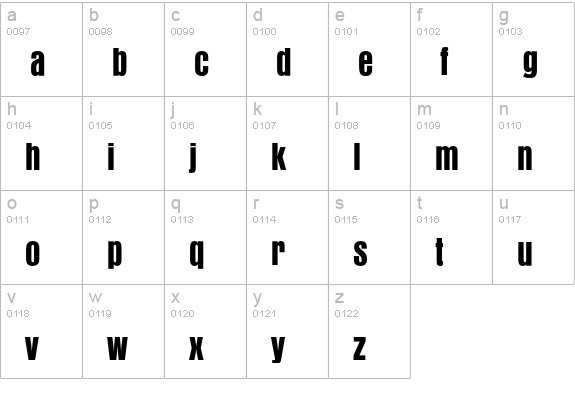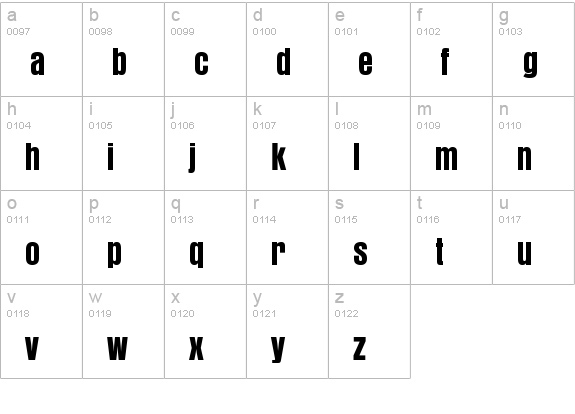
Anzeigen Grotesk T is a modern and versatile typeface that exudes sophistication and elegance. Its clean lines and sharp edges make it perfect for a wide range of design projects, from branding to editorial design. The font's sleek and minimalistic aesthetic lends a sense of professionalism and sophistication to any text it is applied to. What sets Anzeigen Grotesk T apart is not only its timeless design, but also the fact that it is available for free download at FontsMarket.com. This means that you can incorporate this high-quality typeface into your projects without any cost, making it a valuable asset for designers and creatives looking to elevate their work with a premium font. Whether you're creating a sleek website, designing a striking poster, or crafting a stylish logo, Anzeigen Grotesk T is sure to make a bold statement and leave a lasting impression. Download it today and add a touch of elegance to your design projects.